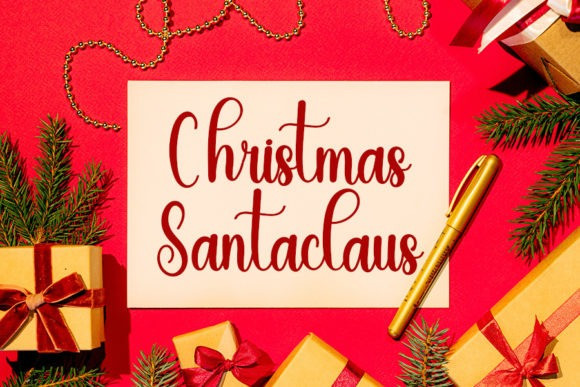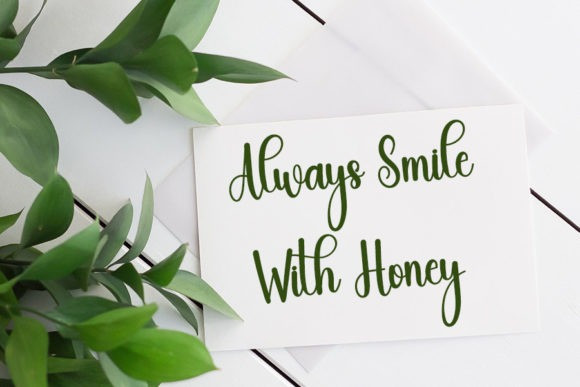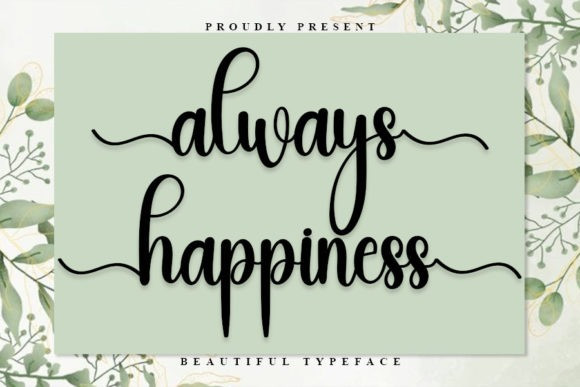
Always Happiness Font
Always Happiness Font is an enchanting handwritten font. This versatile typeface has a wide spectrum of applications ranging from greeting cards to headlines and is guaranteed to add a romantic feel to your next project.